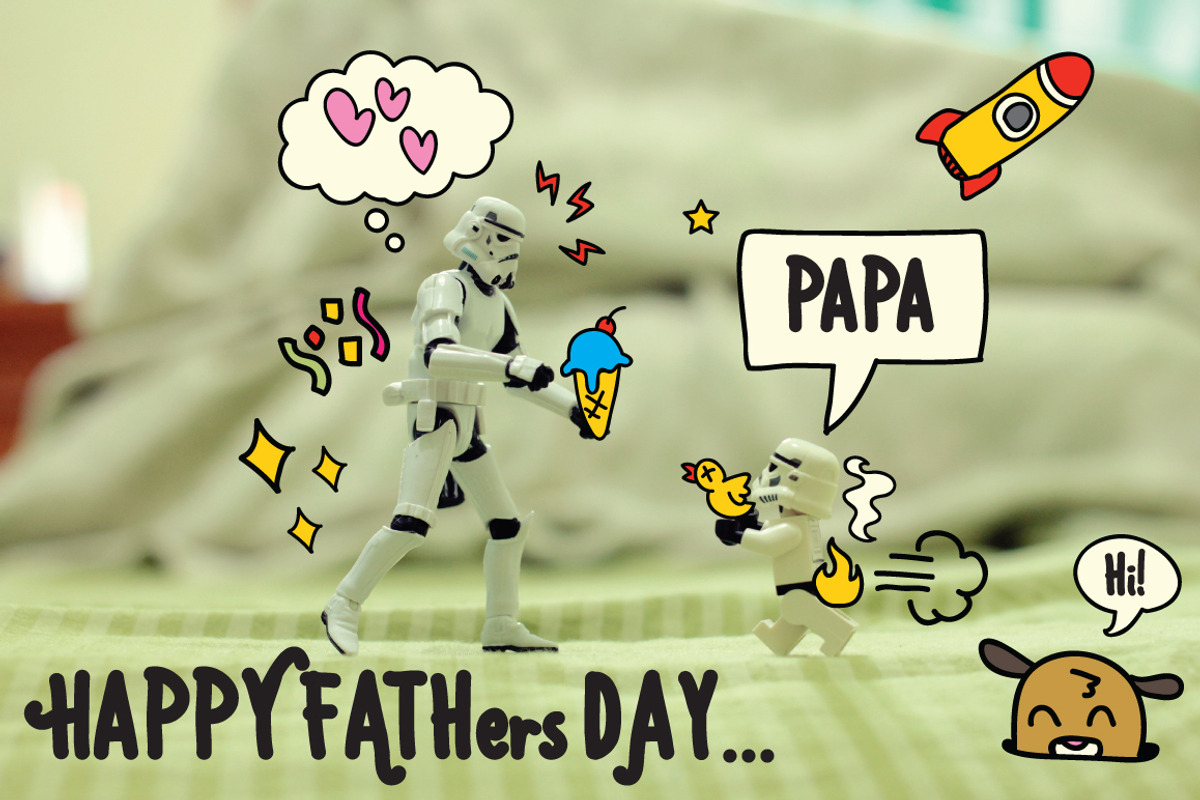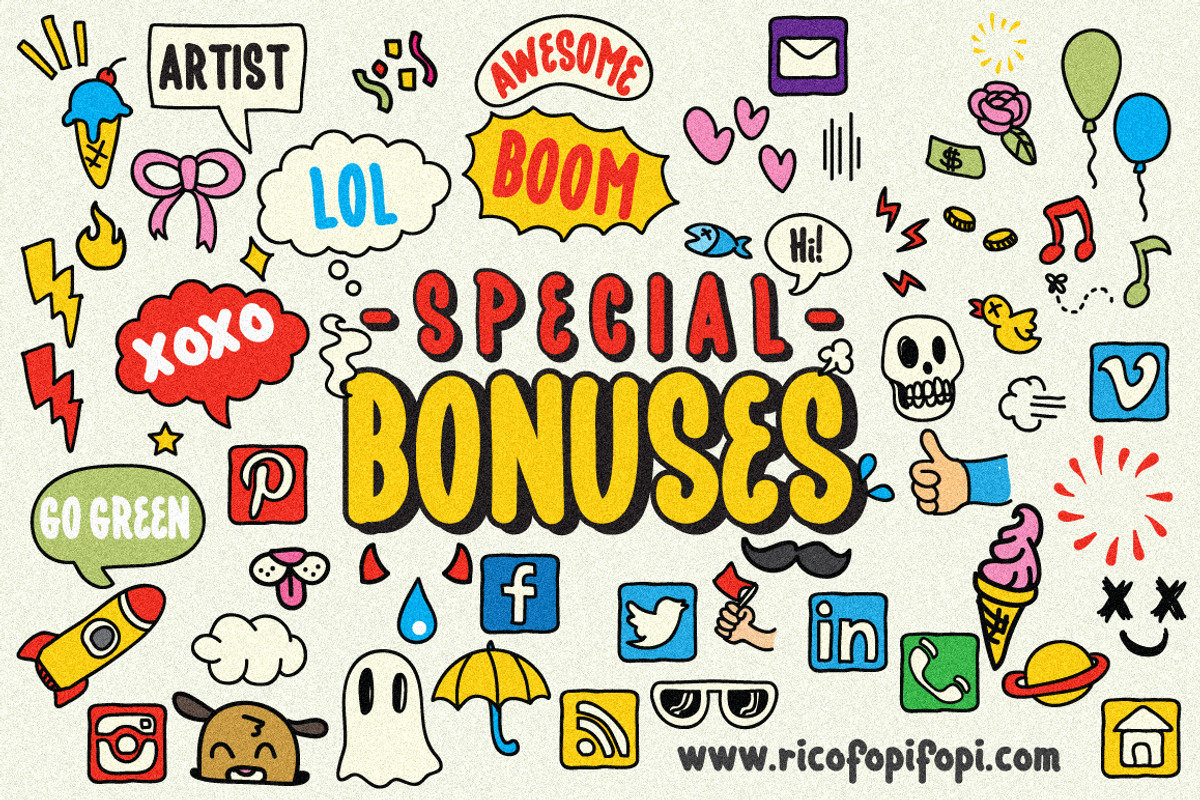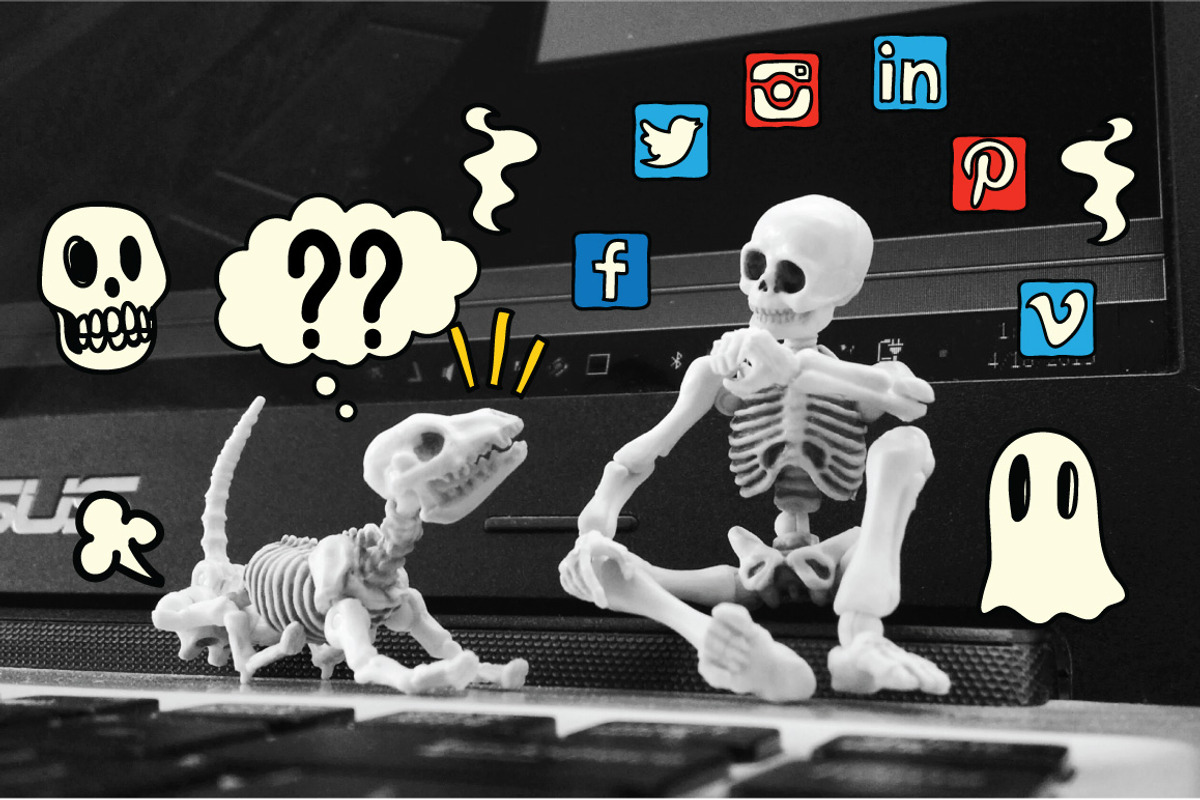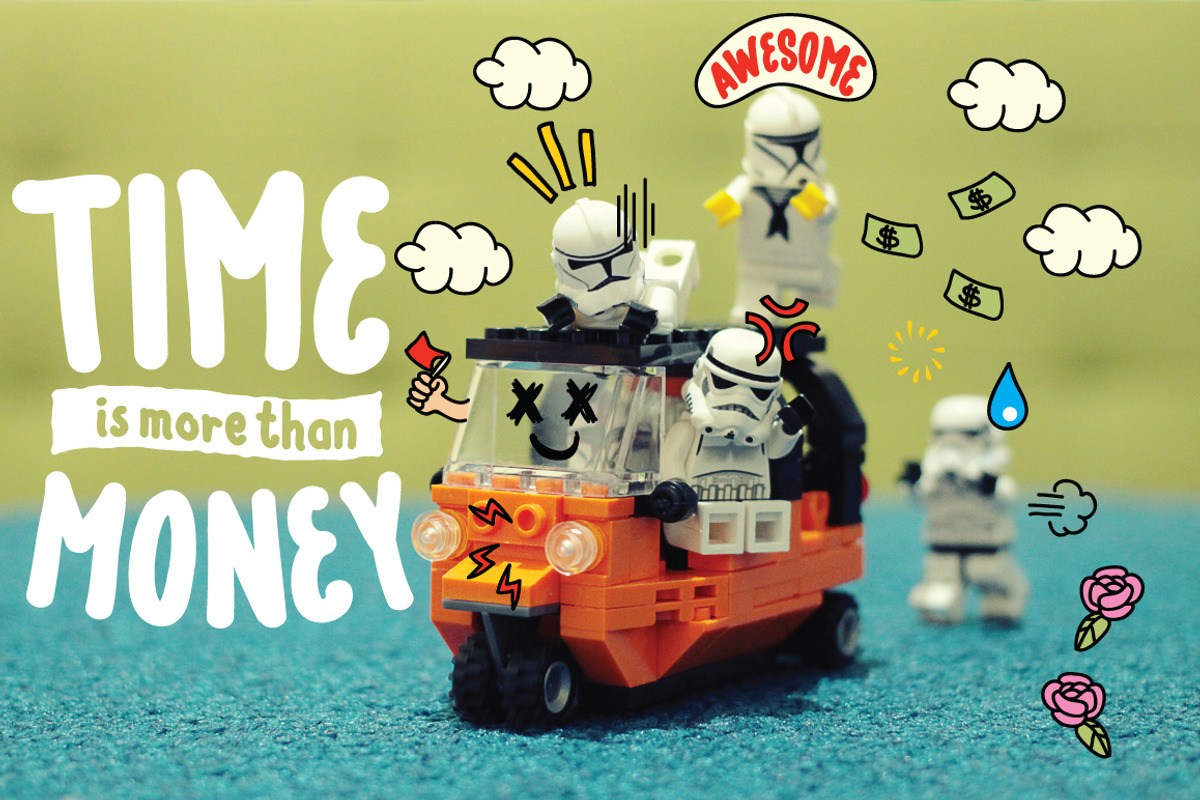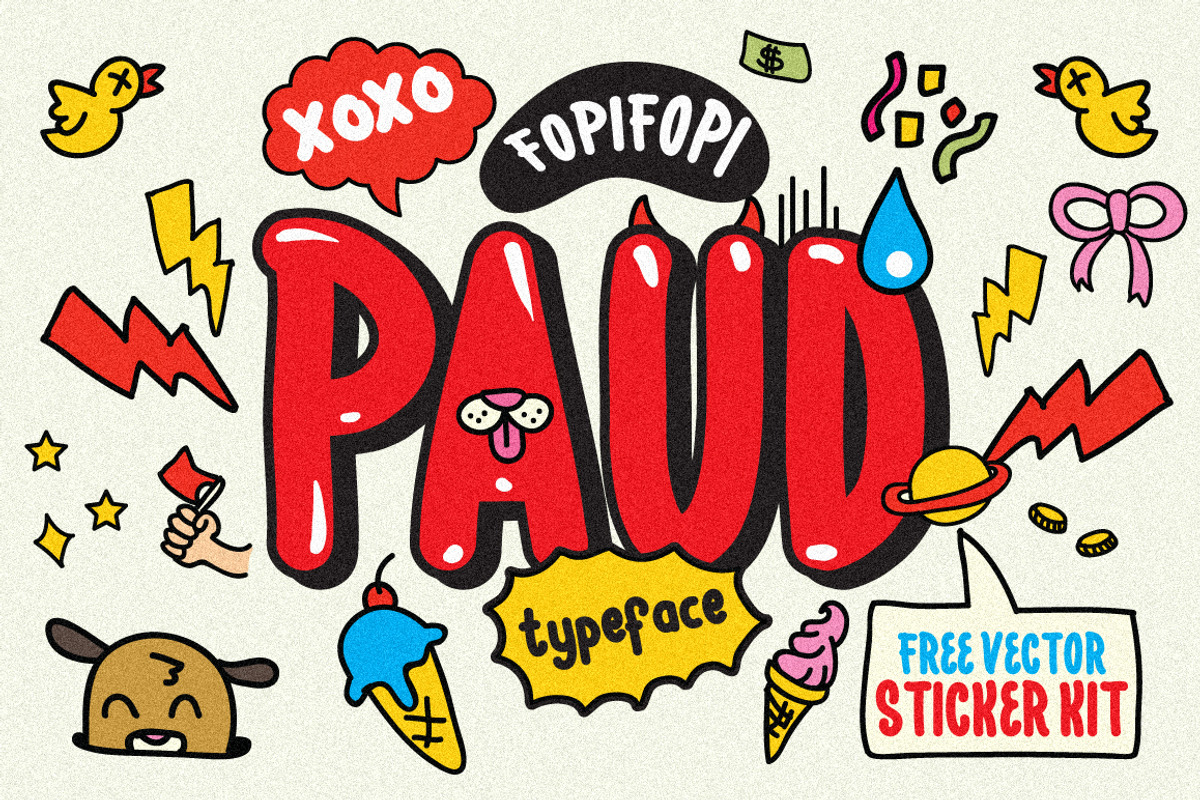
We all know that sometimes digital contents lack of emotions. Even though everyone loves to express freely, widely, HAPPILY, texts only (like what we can only do here) is not enough to show what we’re currently feeling or what we want others to feel! Don’t you think so?
That’s why we need stickers to cheer up the conversation, and that’s exactly why we created this PAUD Typeface. Perhaps you wanna put more kiddish side to your photography, or you want to create a little comic by combining cringeworthy cute characters, this will enable you to do that!
Bring more story to your creations, put lovely ghost here, or dizzy little yellow bird there. We also have Go Green rocket, how fun is that? Haha!
If you like this marker-handwritten typeface, buy it now! It’s inspired by kids doodling and some social media’s stickers which will joyfully fit to your online sticker and all of your handcrafter projects presentations.